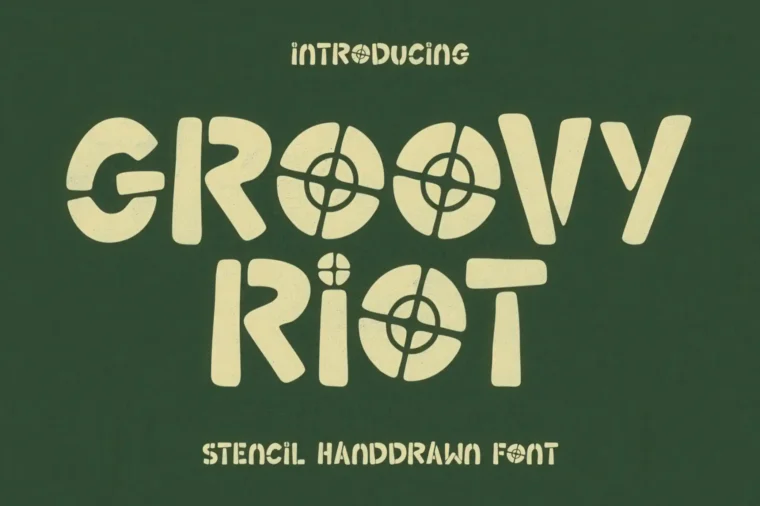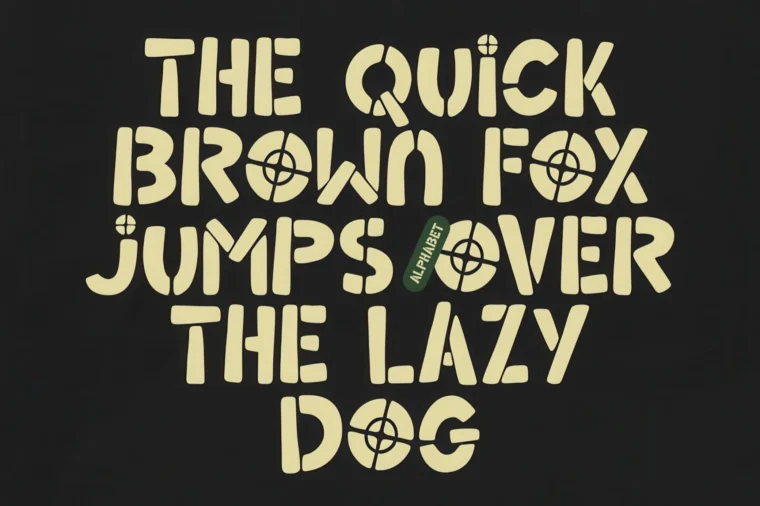
If you’re looking for a font that screams rebellion, chaos, and artistic edge, Groovy Riot is the perfect choice. This stencil handwritten display font blends the wild energy of street art with the raw aesthetic of DIY posters. Think Suicide Squad-style graphics, punk zines, rebellious slogans, and protest-inspired visuals—Groovy Riot is all about standing out and making a statement.
From its jagged stencil cuts to its imperfect hand-drawn curves, this font has a bold personality that grabs attention. It’s great for projects where you want your text to feel loud, expressive, and unpolished in the coolest way possible.
Uppercase & lowercase letters
Numbers and punctuation
Multilingual characters
It’s fully equipped to support a wide range of languages and creative needs, from personal expression to global branding.
Movie or music posters
Album covers for punk, rock, or indie genres
Streetwear branding and apparel designs
Sticker packs or graffiti-style merch
Social media posts with attitude
Grunge-themed YouTube thumbnails
Zines, underground art, and alternative magazines
Why Use Groovy Riot?
Fonts like Groovy Riot are made for creative rule-breakers. Whether you’re working on a design for a rebellious campaign, creating branding for a music festival, or just want something different than clean minimalism, this font adds instant character. It captures that messy, human, expressive energy that can’t be replicated by sterile sans-serifs.
Use Groovy Riot in big headlines, bold logos, poster titles, or even body text if you’re going for a chaotic vibe. Pair it with textured backgrounds, neon colors, or grainy photo overlays to enhance its grungy personality.
Pro Tip: Combine Groovy Riot with splatter textures, glitch effects, or brush strokes to elevate your design. It works amazingly well with loud visuals and layered collages.